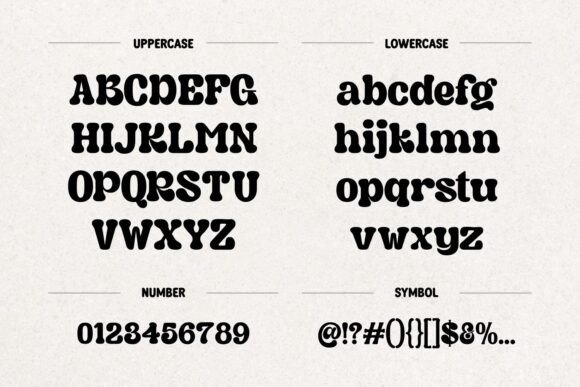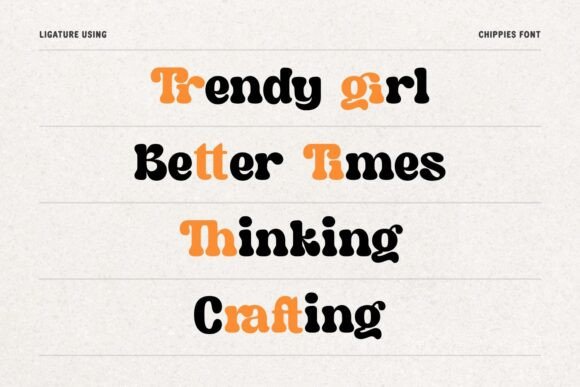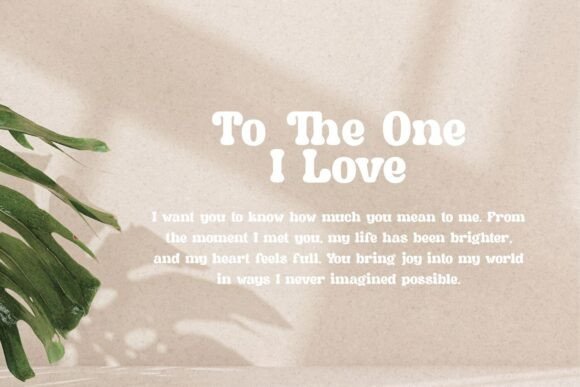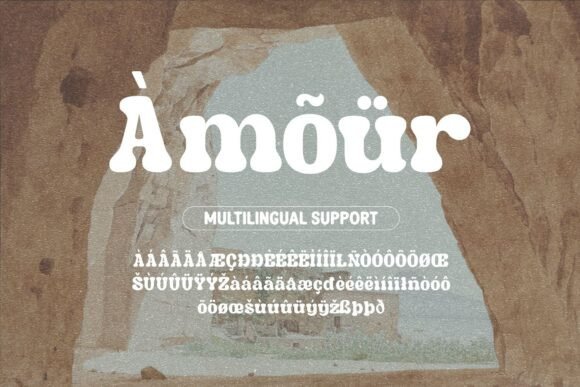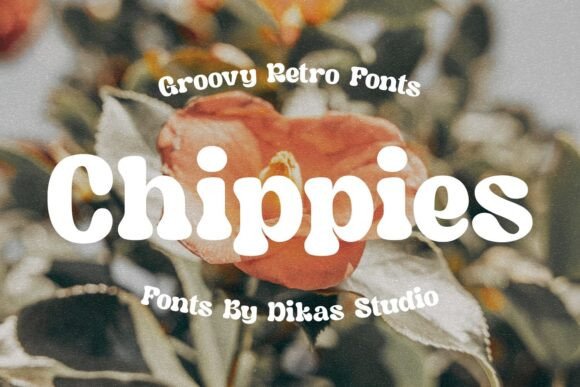
Introducing Chippies Font: The Playful Retro Typeface You Need
In the world of design, fonts play a crucial role in conveying the tone and personality of a project. If you’re looking for a typeface that embodies a fun, nostalgic vibe, look no further than Chippies Font. This bold, rounded font is perfect for vintage-inspired projects, adding a playful touch that’s sure to make your work stand out.
What is Chippies Font?
Chippies is a carefully crafted font that draws inspiration from classic retro typography. Its bold, rounded letterforms evoke a sense of nostalgia, reminiscent of vintage posters, logos, and packaging from the mid-20th century. With its unique character and playful personality, Chippies is ideal for designers and crafters looking to add a touch of whimsy to their work.
Key Features of Chippies Font
- Bold and Rounded Letterforms: Chippies features bold, rounded letterforms that give it a distinctive retro look.
- Playful Personality: This font is designed to add a fun and playful touch to your designs, making it perfect for vintage-inspired projects.
- Highly Versatile: Chippies can be used for a wide range of design applications, from posters and logos to packaging and more.
- Easy to Read: Despite its bold and playful nature, Chippies remains highly legible, making it suitable for use in a variety of contexts.
Use Cases for Chippies Font
- Posters and Flyers: Add a touch of nostalgia to your posters and flyers with Chippies, making them stand out and grab attention.
- Logo Design: Create a unique and memorable logo for your brand or business using Chippies, giving it a playful and retro vibe.
- Packaging Design: Give your product packaging a vintage-inspired look with Chippies, making it stand out on store shelves.
- Social Media Graphics: Use Chippies to add a playful touch to your social media graphics, such as Facebook posts, Instagram stories, and more.
Why Choose Chippies Font?
- Unique Character: Chippies has a distinctive personality that sets it apart from other fonts.
- High-Quality Design: Chippies is carefully crafted to ensure high-quality design, with clean lines and precise letterforms.
Tips for Using Chippies Font
- Experiment with Colors: Chippies looks great in a variety of colors, so don’t be afraid to experiment and find the perfect hue for your design.
- Play with Pairings: Try pairing Chippies with other fonts to create a unique and interesting contrast.
- Keep it Simple: Don’t overcomplicate your design – Chippies is perfect for simple, bold designs that make a statement.
Chippies Font is a bold, rounded typeface that’s perfect for adding a playful retro vibe to your designs. With its unique character, highly versatile nature, and ease of use, it’s an excellent choice for designers and crafters looking to make their work stand out. Whether you’re creating posters, logos, packaging, or social media graphics, Chippies is sure to bring a fun and nostalgic touch to your projects.